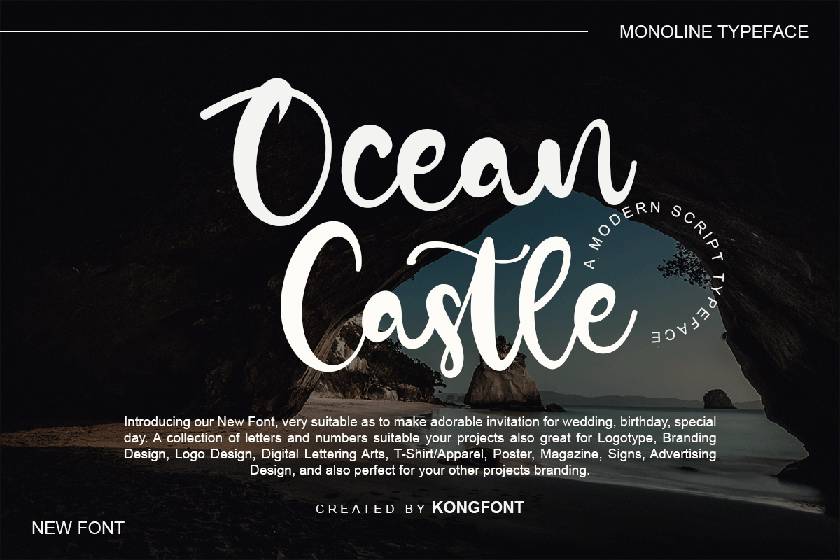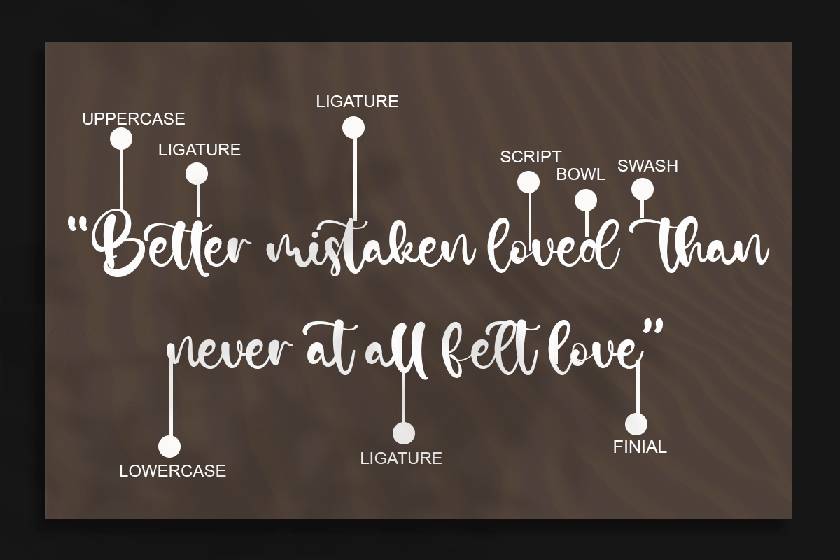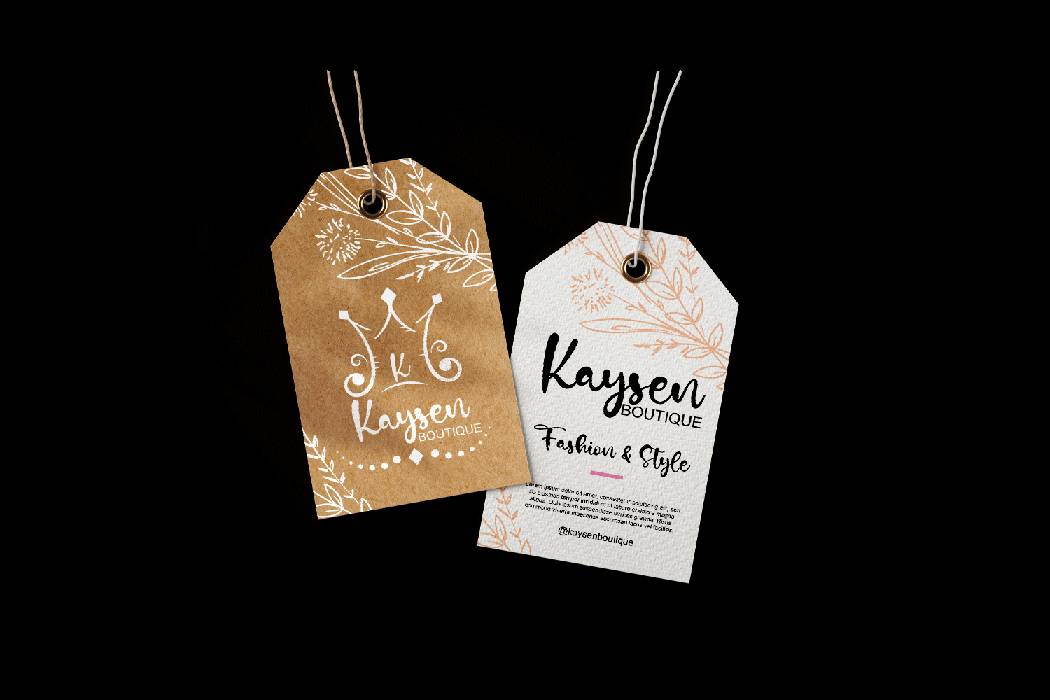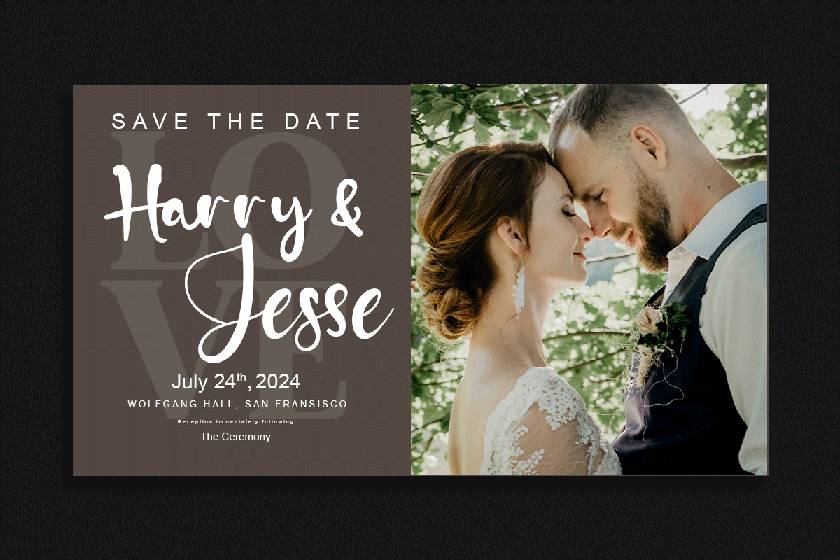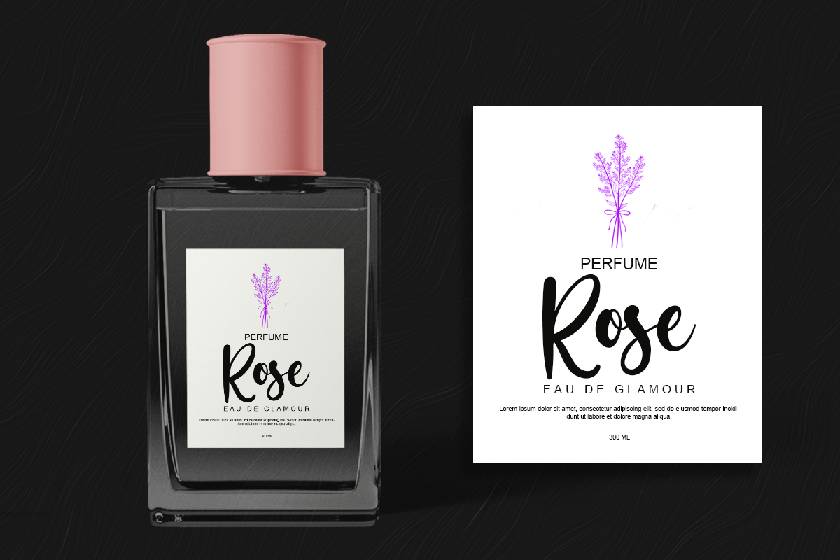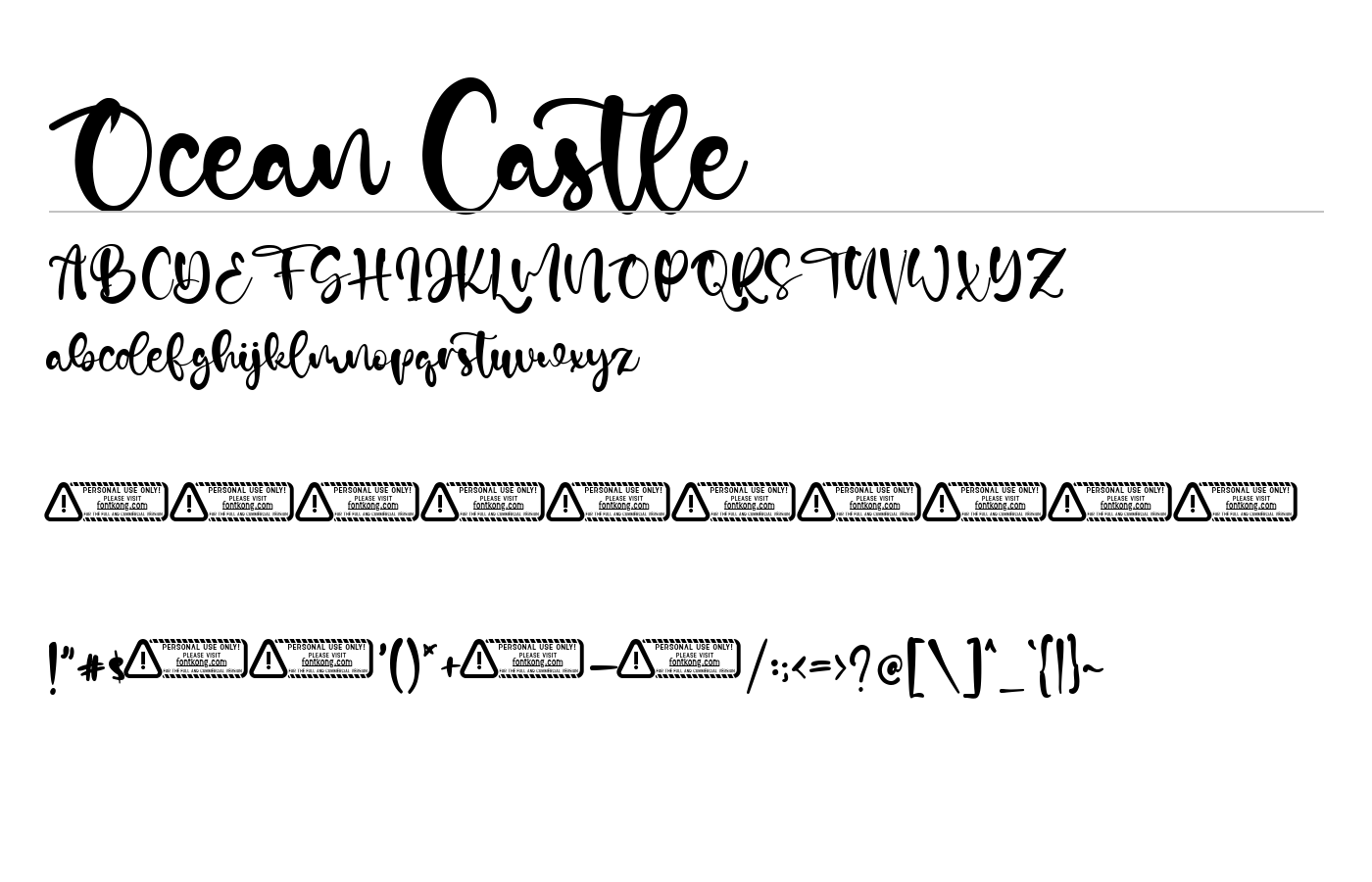
Ocean Castle is a lively and elegant script font with flowing, brush-like strokes that give it a handcrafted, artistic feel. Its smooth curves and playful flair make it perfect for creative branding, invitations, or any design that needs a personal, charming touch. This font works well in headlines and decorative text where a warm and inviting style is desired.
Ocean Castle Font
About Ocean Castle Font
| Font family | Ocean Castle Font |